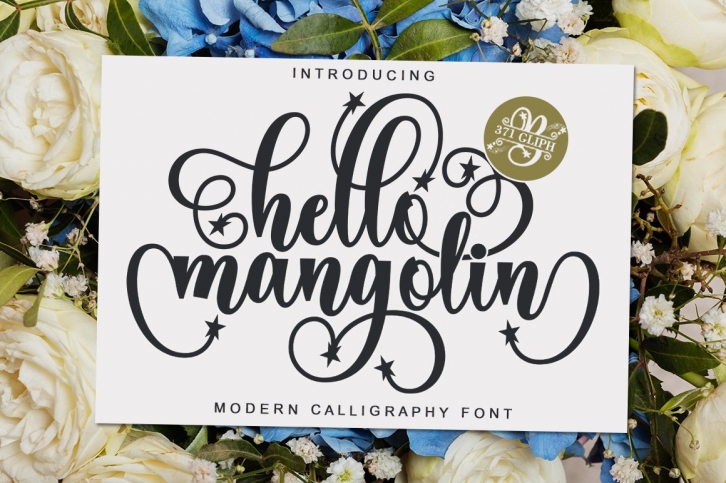
Hello Mangolin & Monogram Hand Lettered is a trendy and unique font with an authentic style. It was designed by IRF Lab Studio and it's a great choice for creative people who need such a font. It was released on August 27, 2022 and the file size is 7.20 MB. Hello Mangolin & Monogram Hand Lettered will add an organic vibe to any design idea!